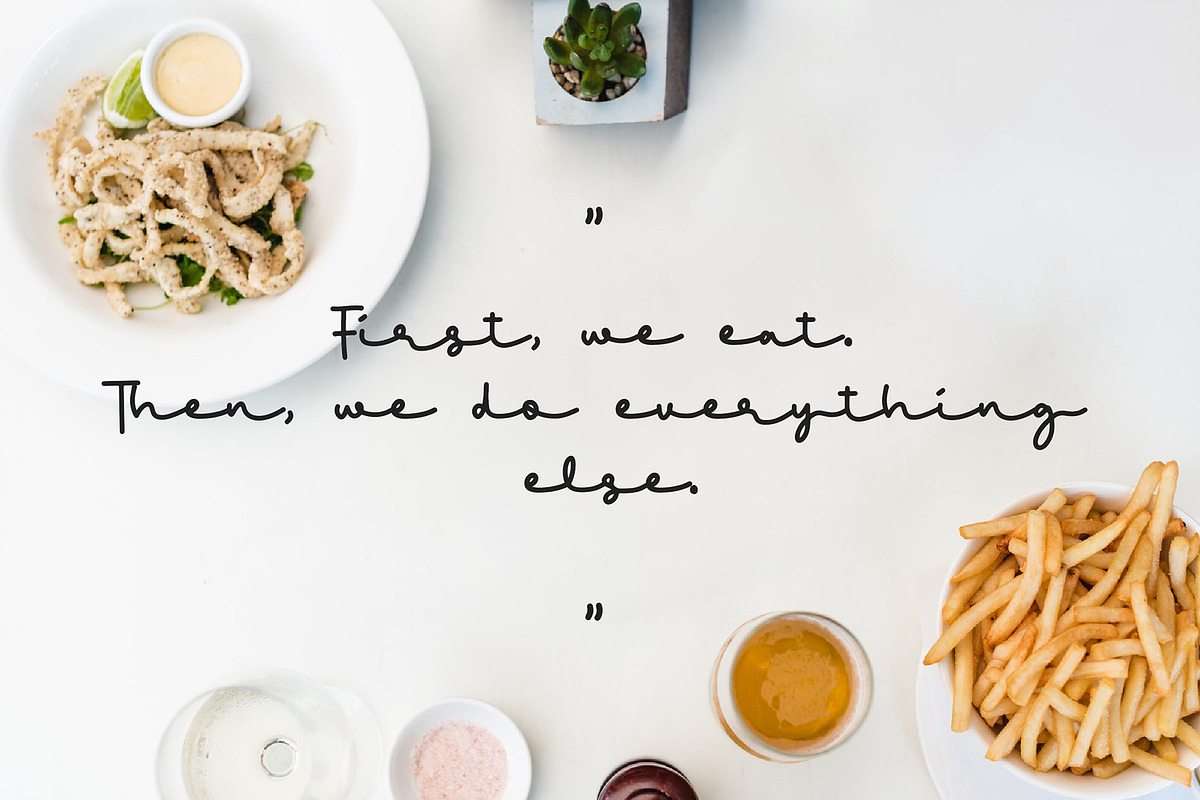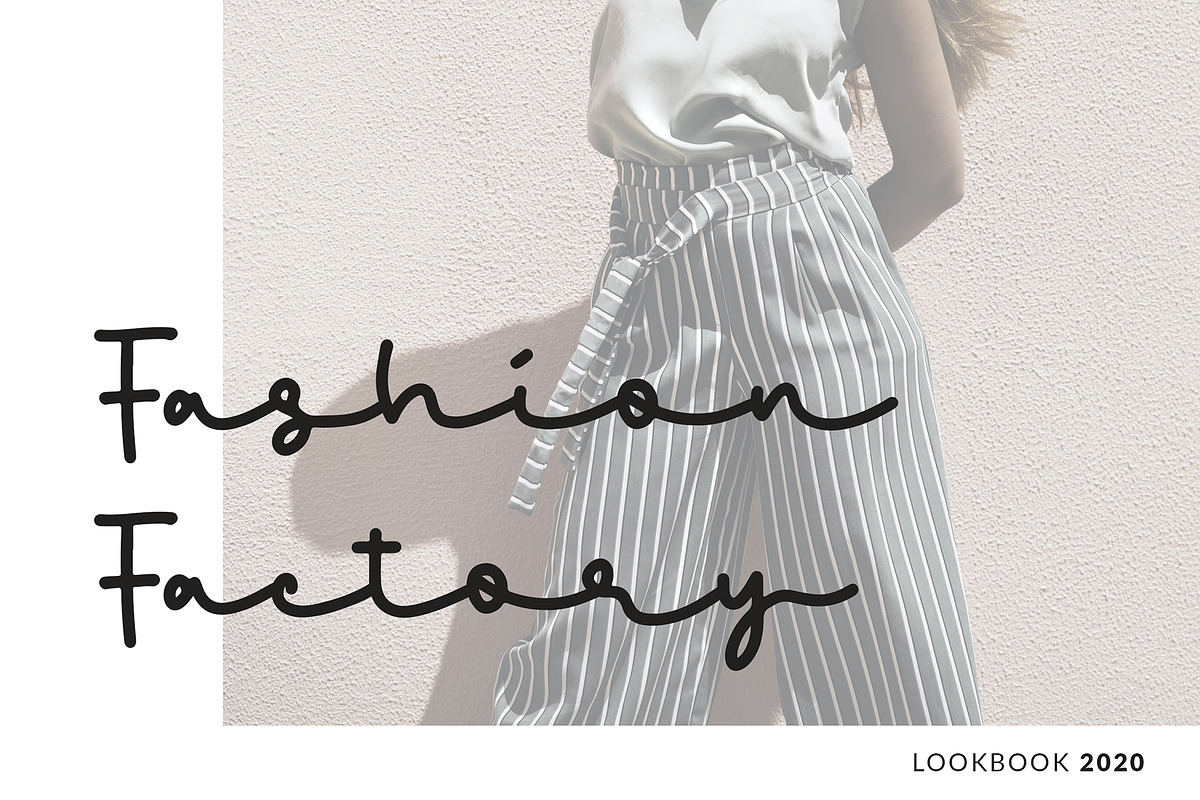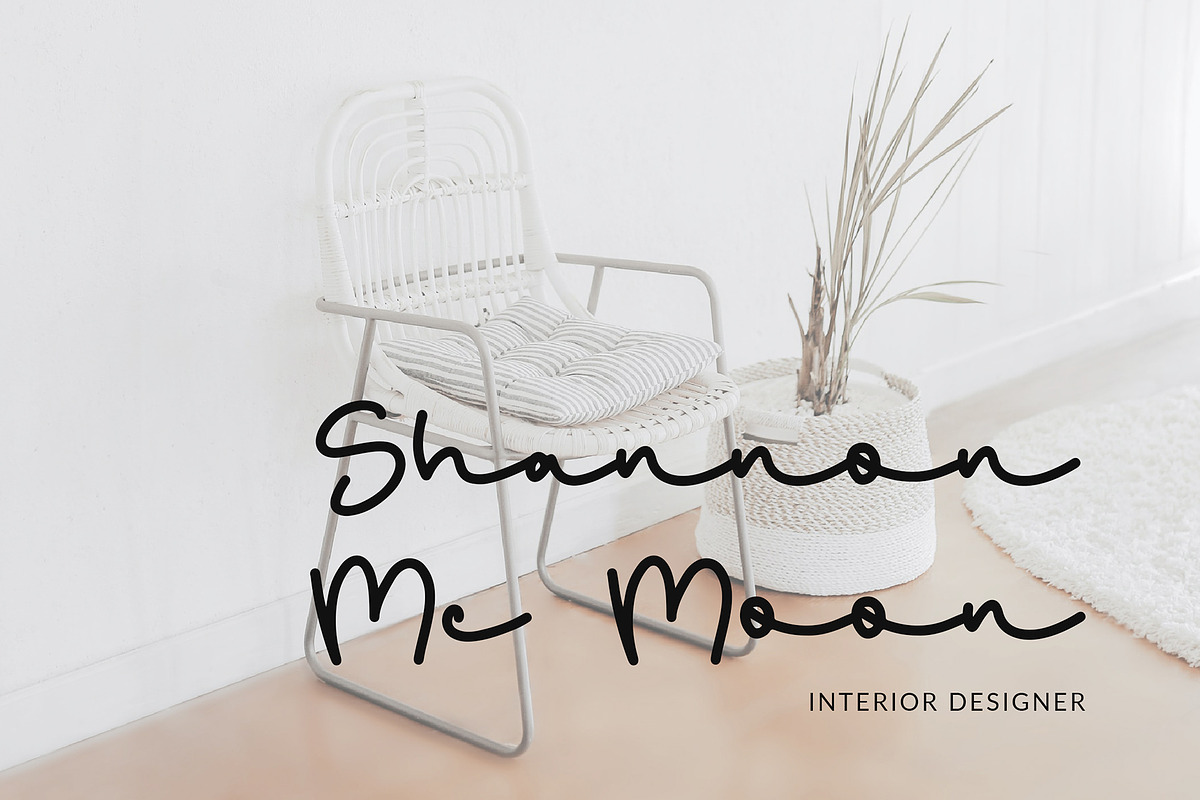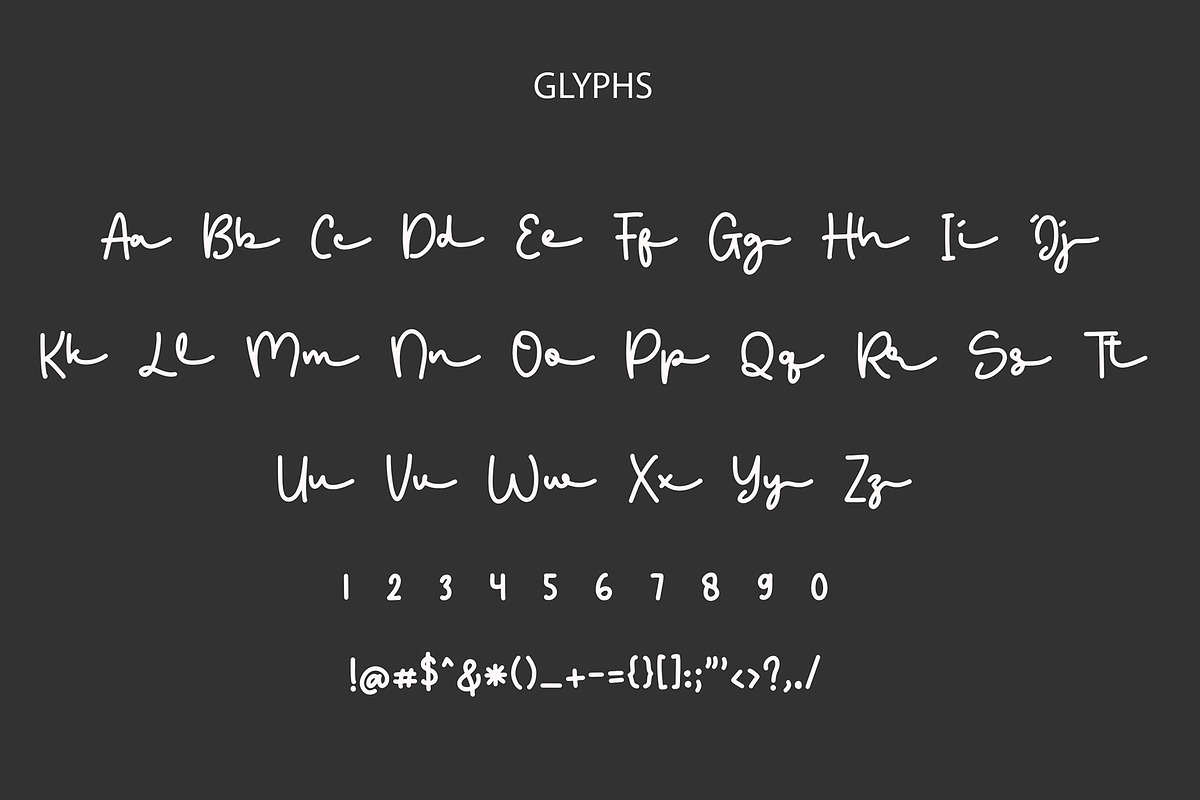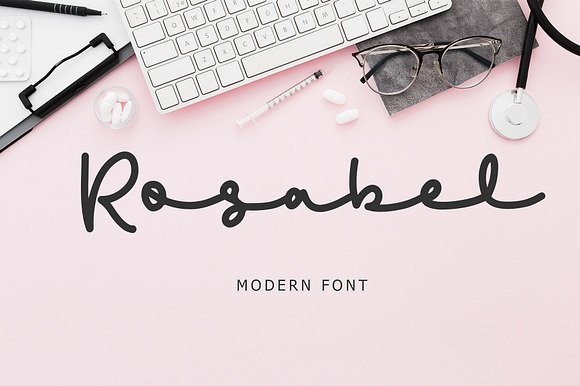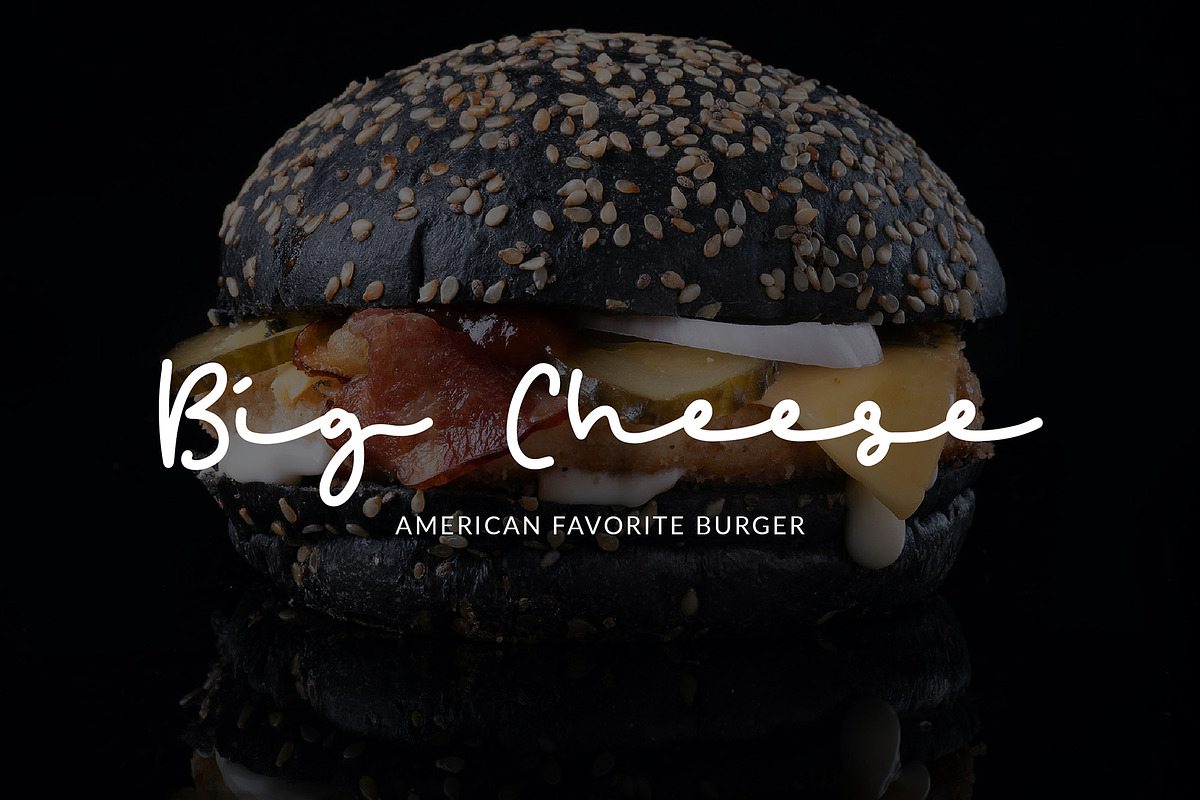
Rosabel Modern Signature Font
Rosabel is a beautiful font with modern style. It’s perfect for adding a graceful feel to any design project.
Rosabel is perfect for branding projects, logo, wedding designs, social media posts, advertisements, product packaging, product designs, label, photography, watermark, invitation, stationery and any projects.
Rosabel Modern Signature Font by Formatika Studio fits naturally into Branding, posters, packaging, typography.